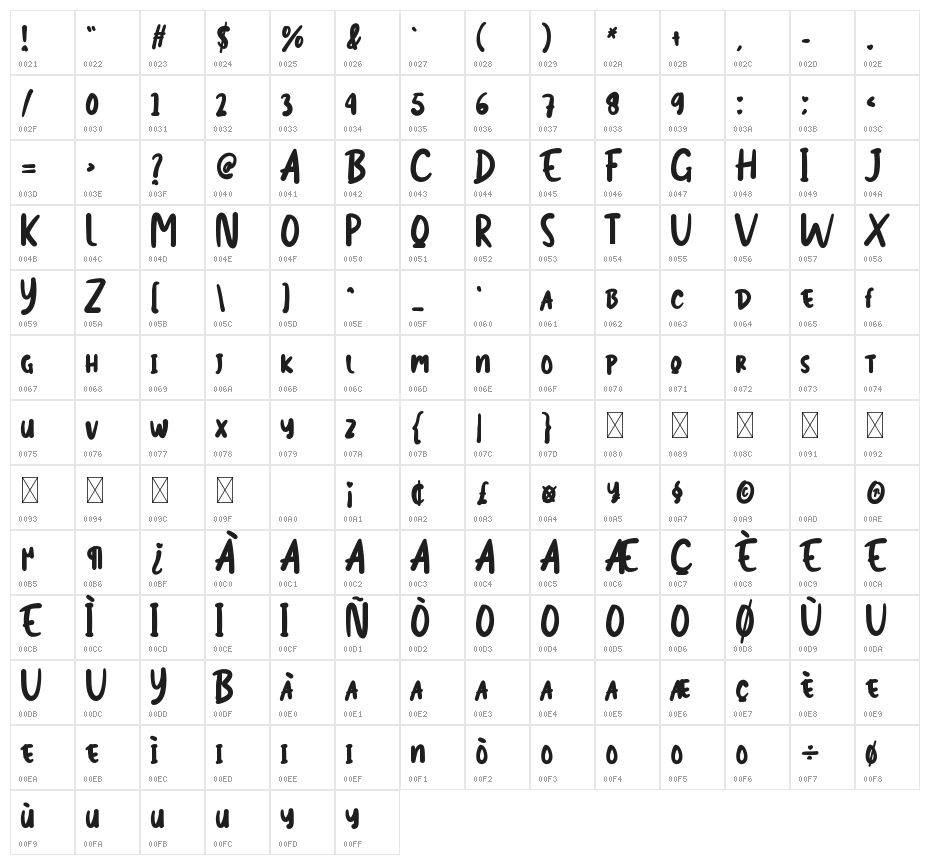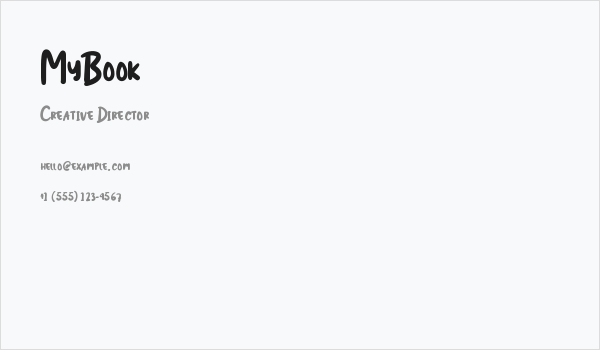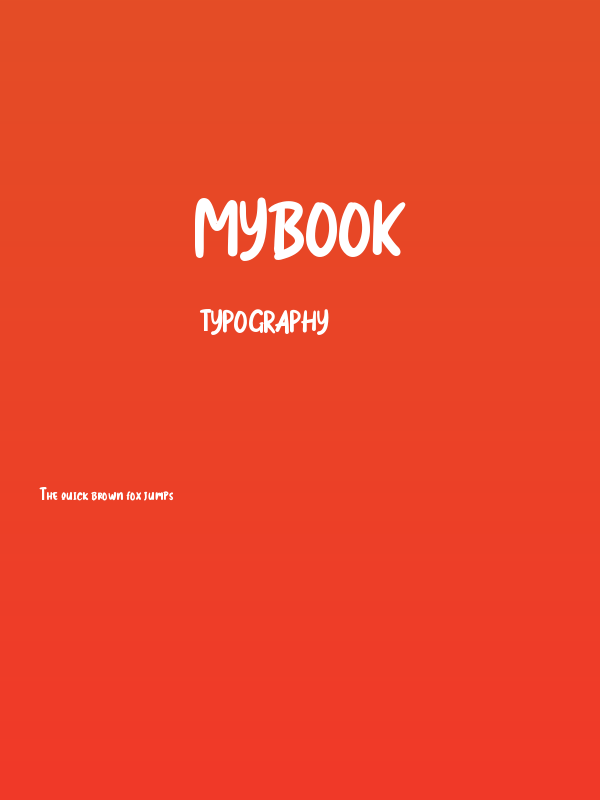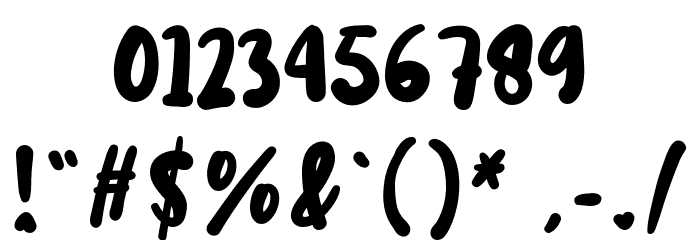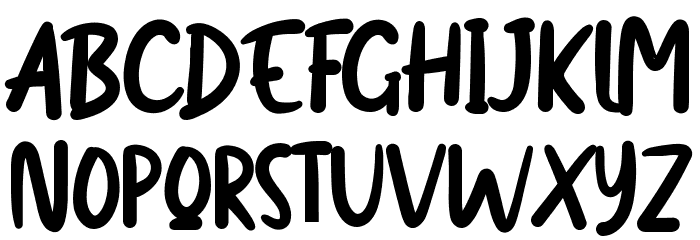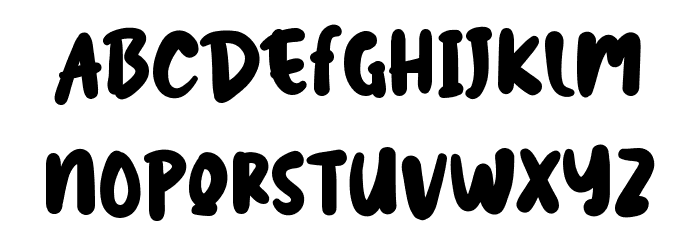
MyBook Font
MyBook Description
A bold, handwritten style font with a playful and casual appearance. The characters are rounded and slightly irregular, giving it a friendly and approachable feel.
| Proposed Projects | Children's books, casual branding, playful posters. |